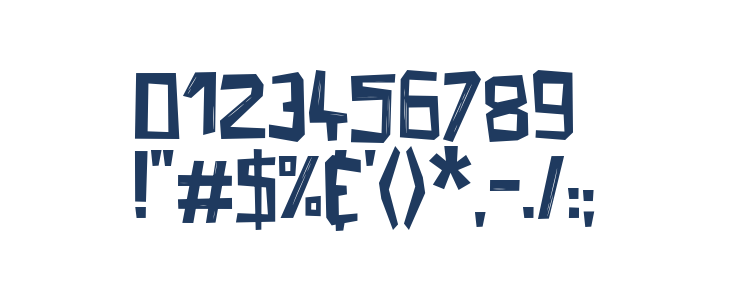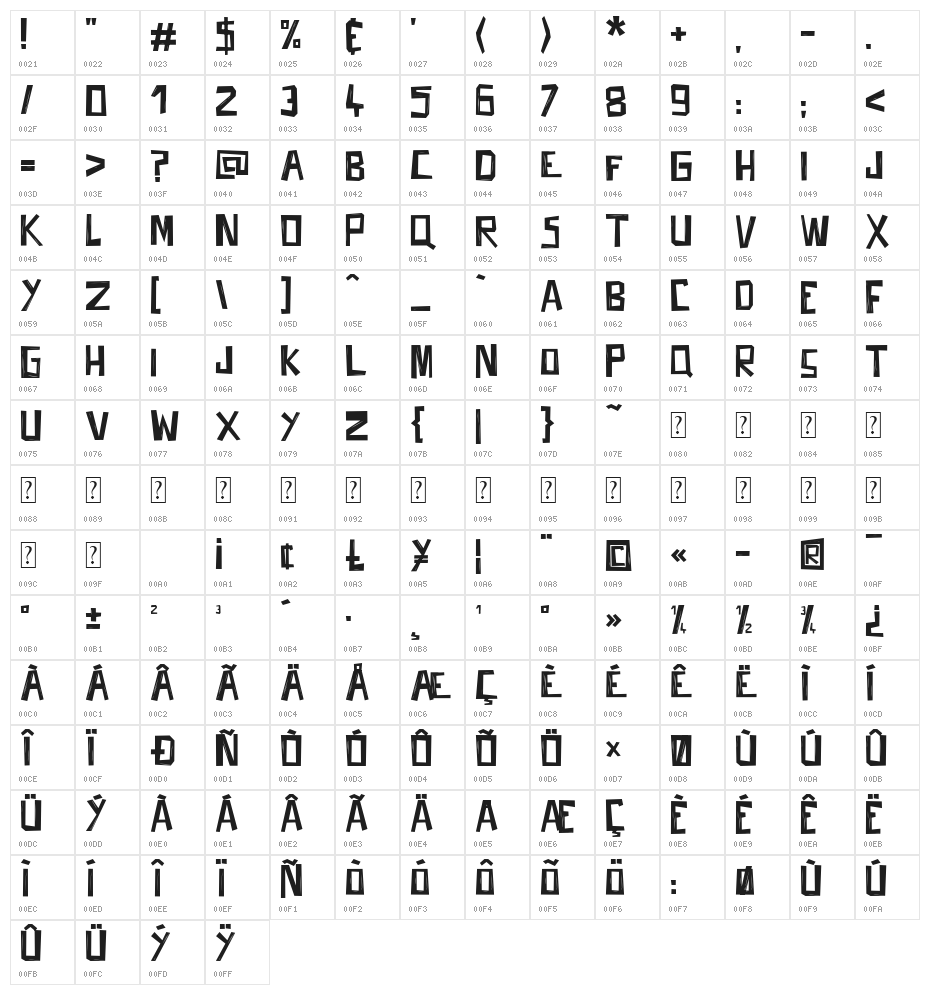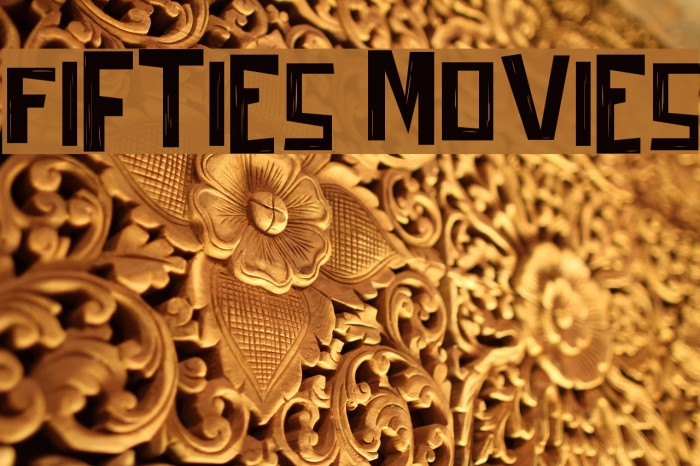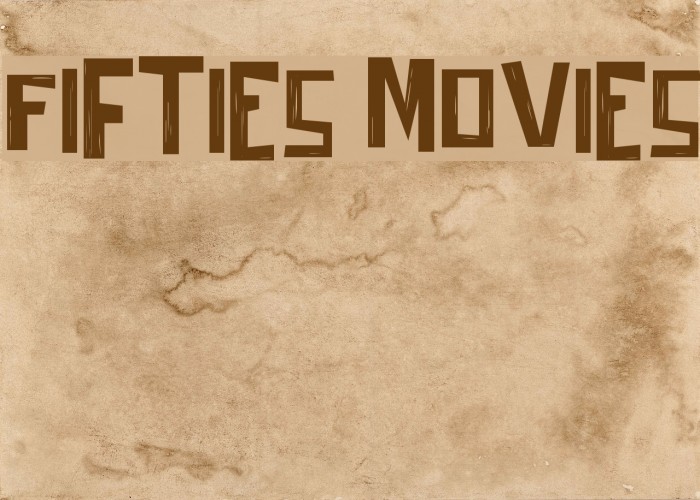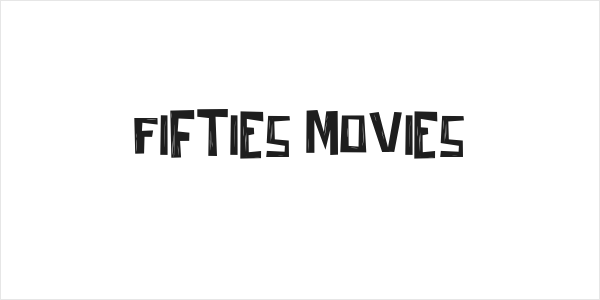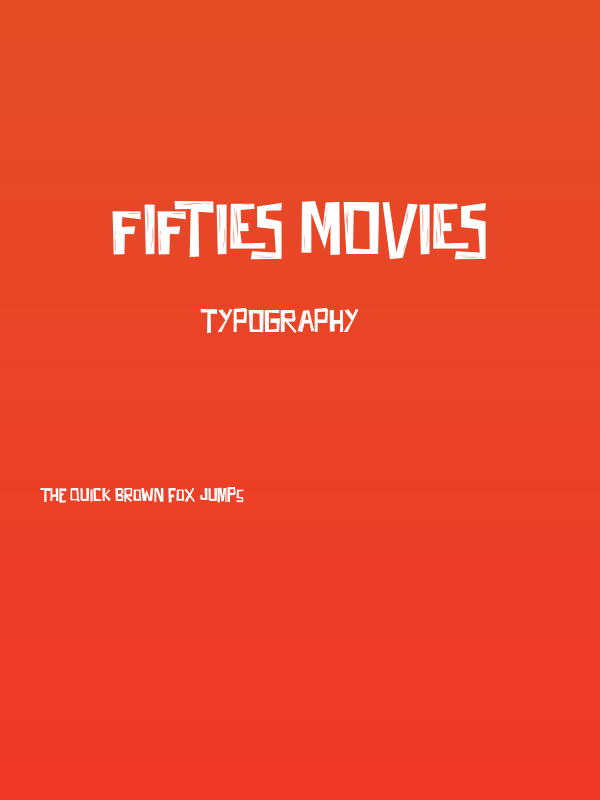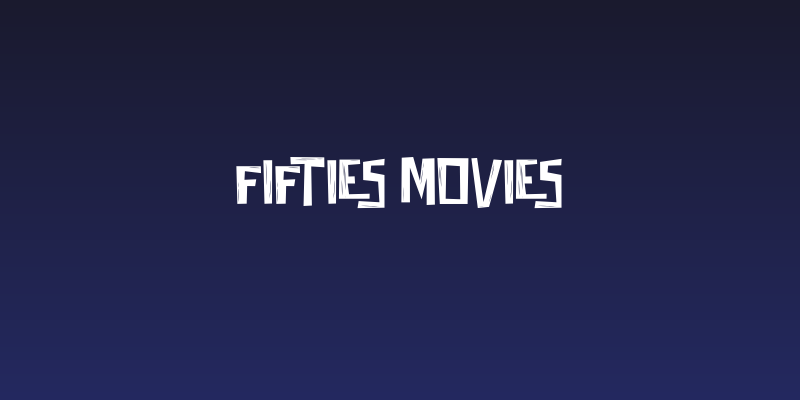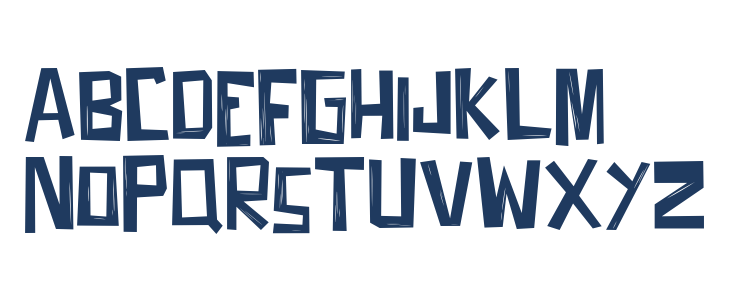
Fifties Movies Font
Fifties Movies Description
This font exudes a bold, retro aesthetic reminiscent of mid-20th-century design, characterized by its angular, geometric shapes and high contrast between thick and thin strokes. The uppercase letters are particularly striking, with sharp edges and a dynamic, slightly irregular form that adds a sense of movement and energy. The lowercase letters maintain this style, offering a cohesive look across all characters. Numbers and special characters follow the same design principles, ensuring consistency throughout. This font's unique style makes it ideal for capturing attention and conveying a sense of nostalgia.
| Proposed Projects | Ideal for vintage-themed posters, retro branding, movie titles, and nostalgic advertising campaigns. |